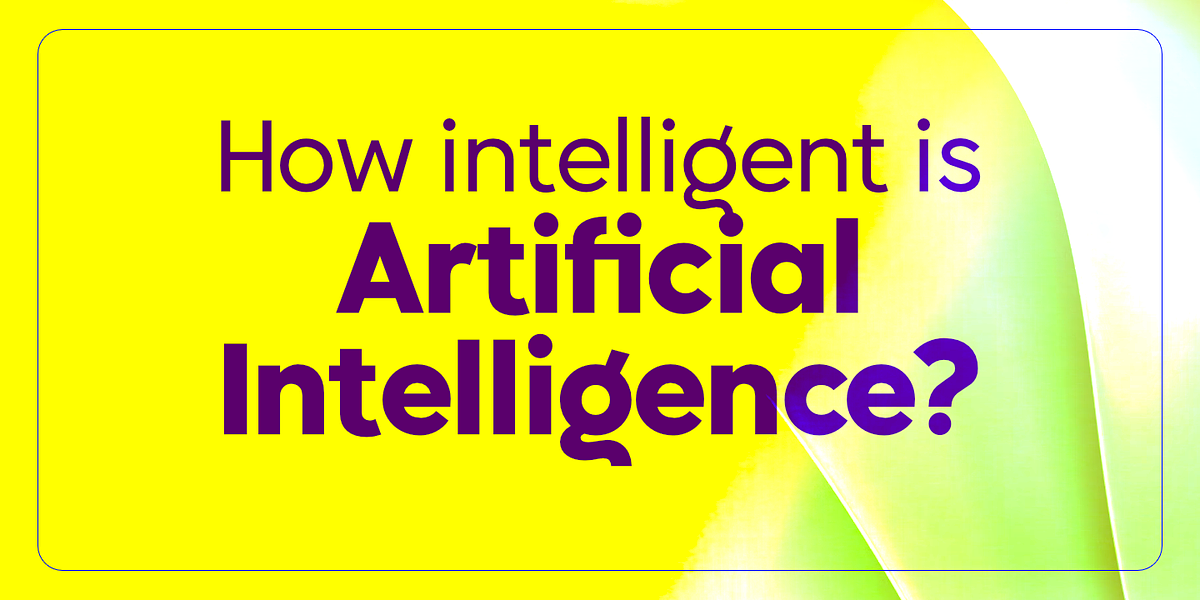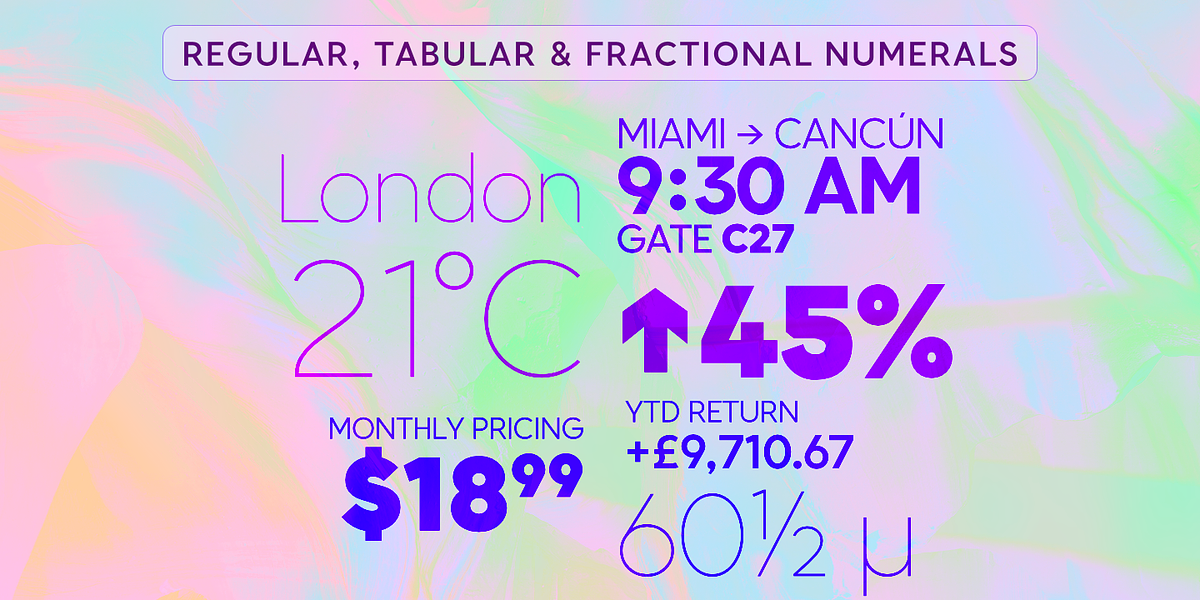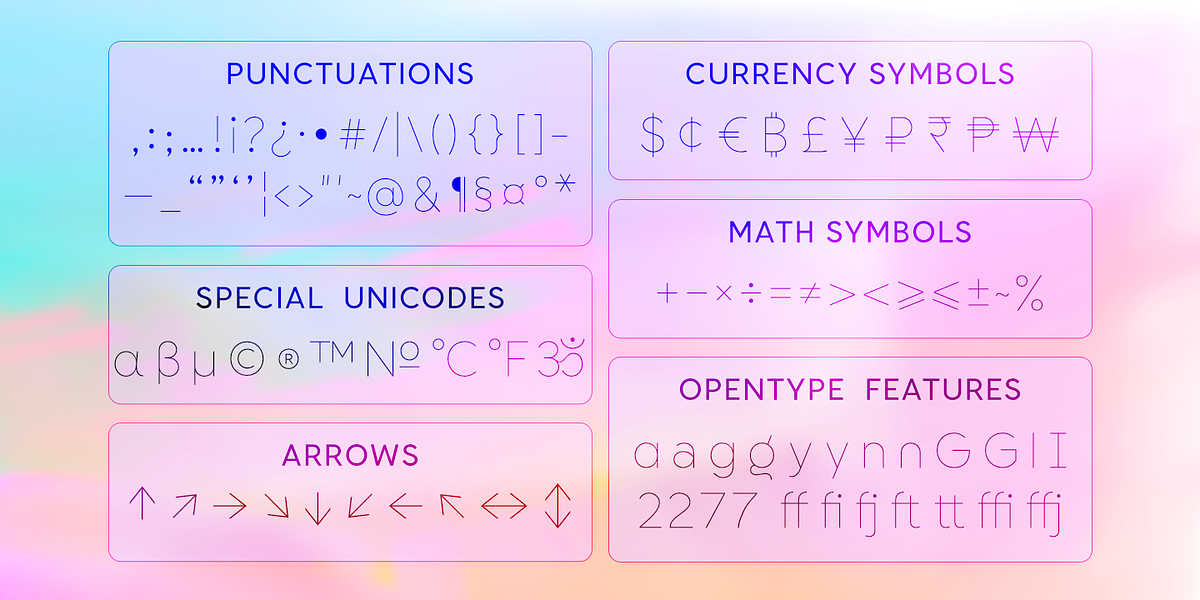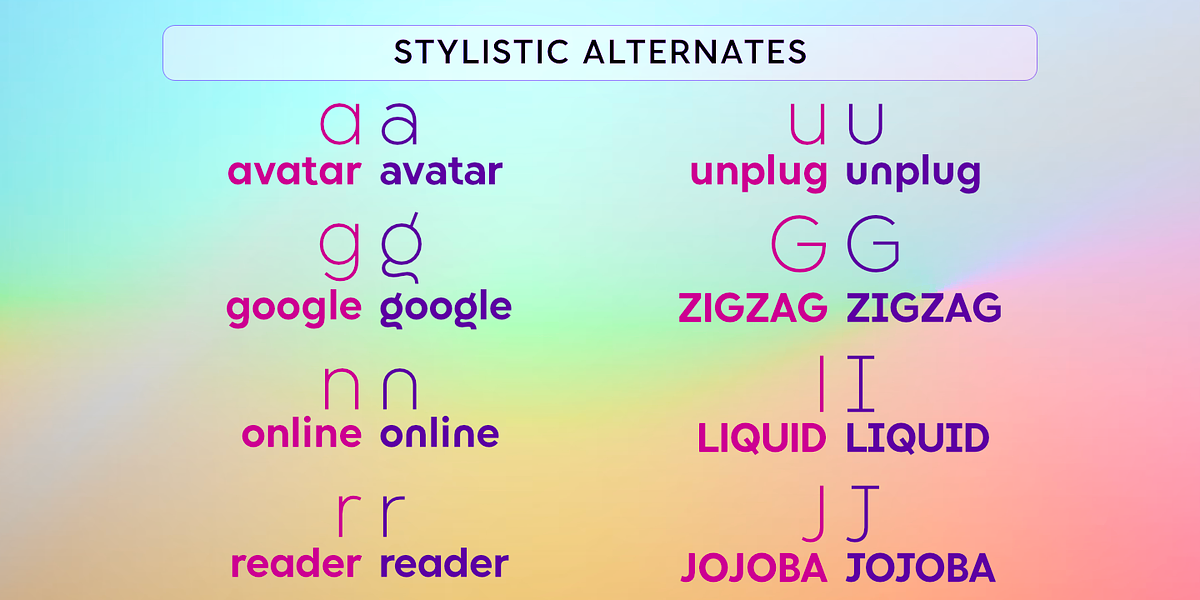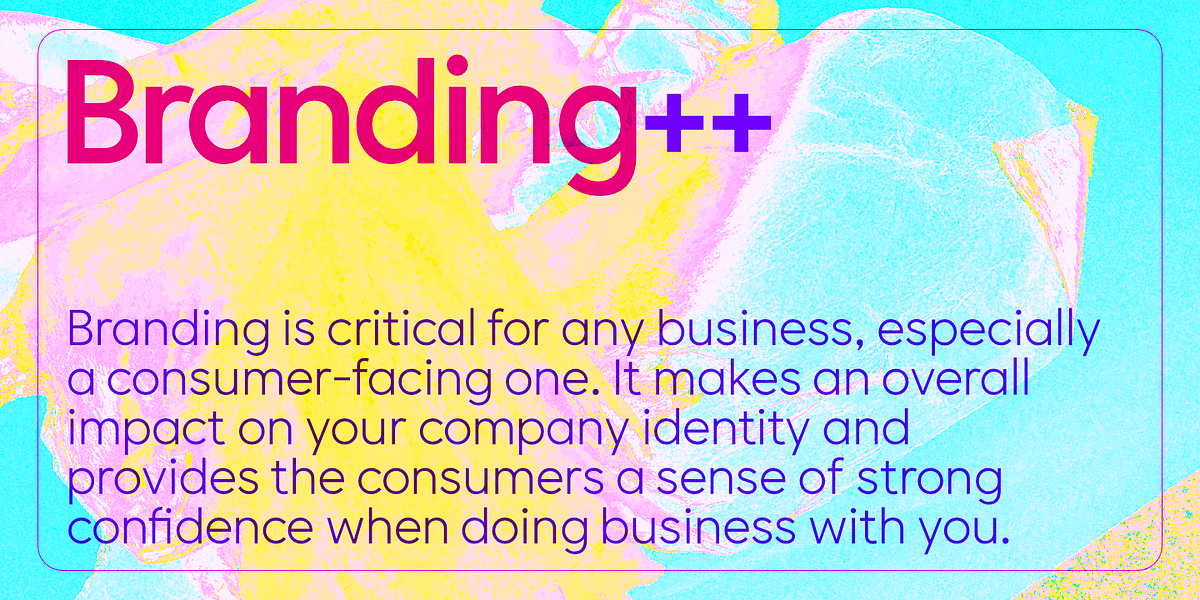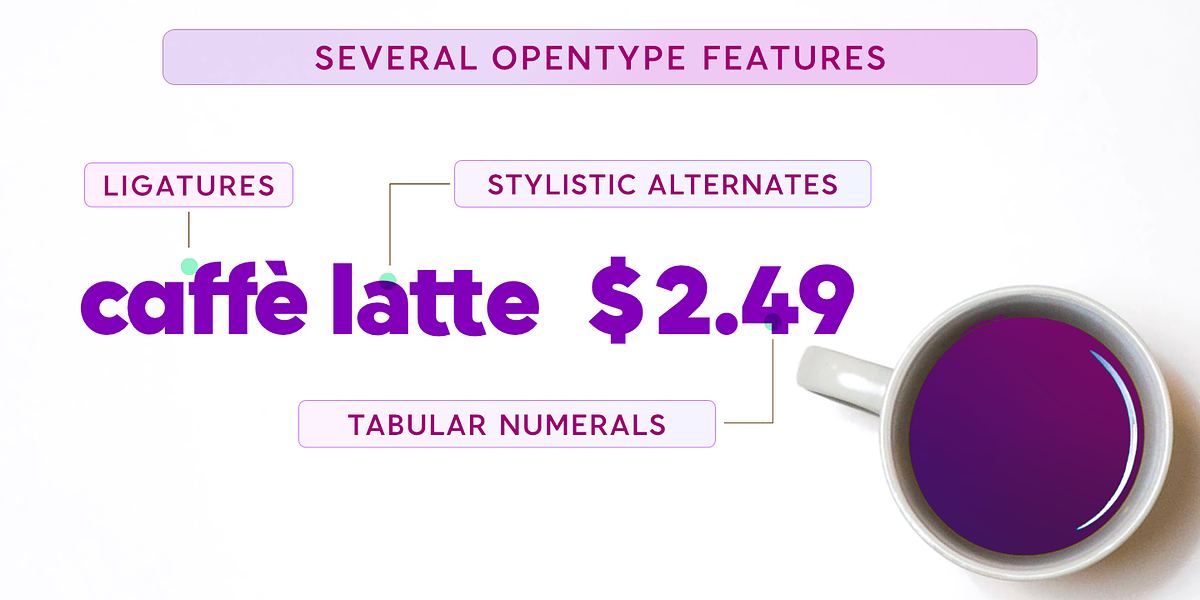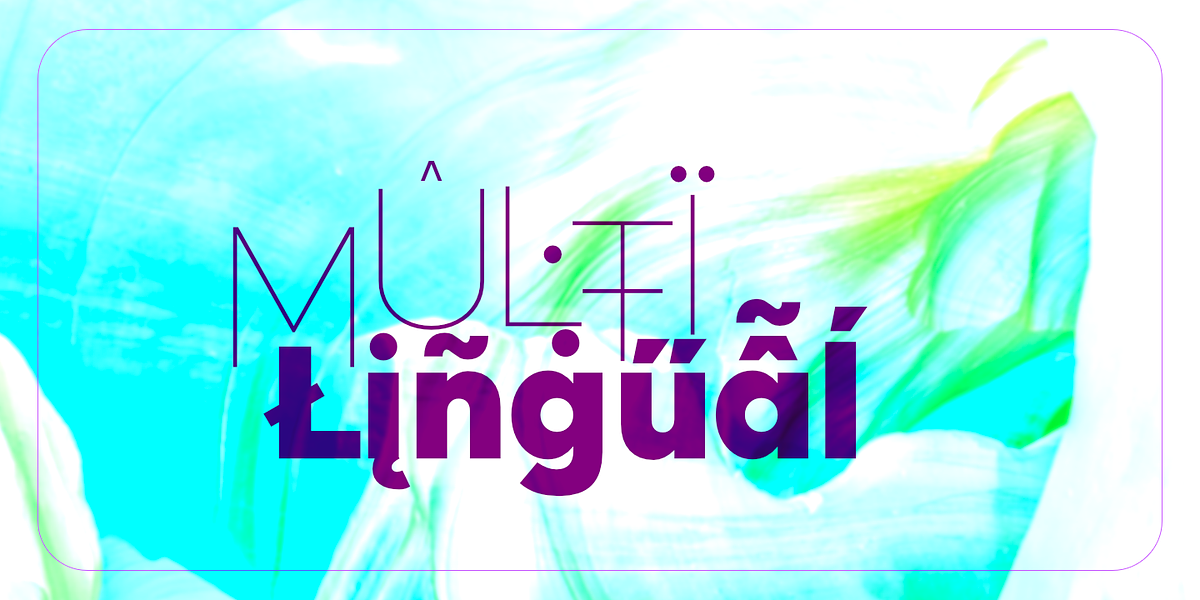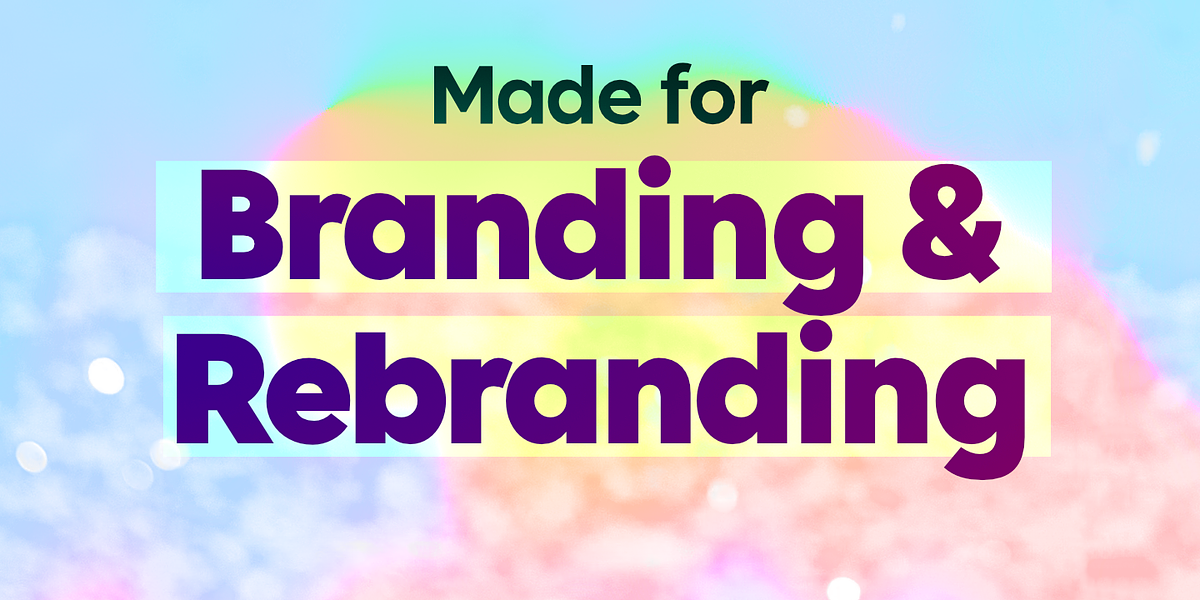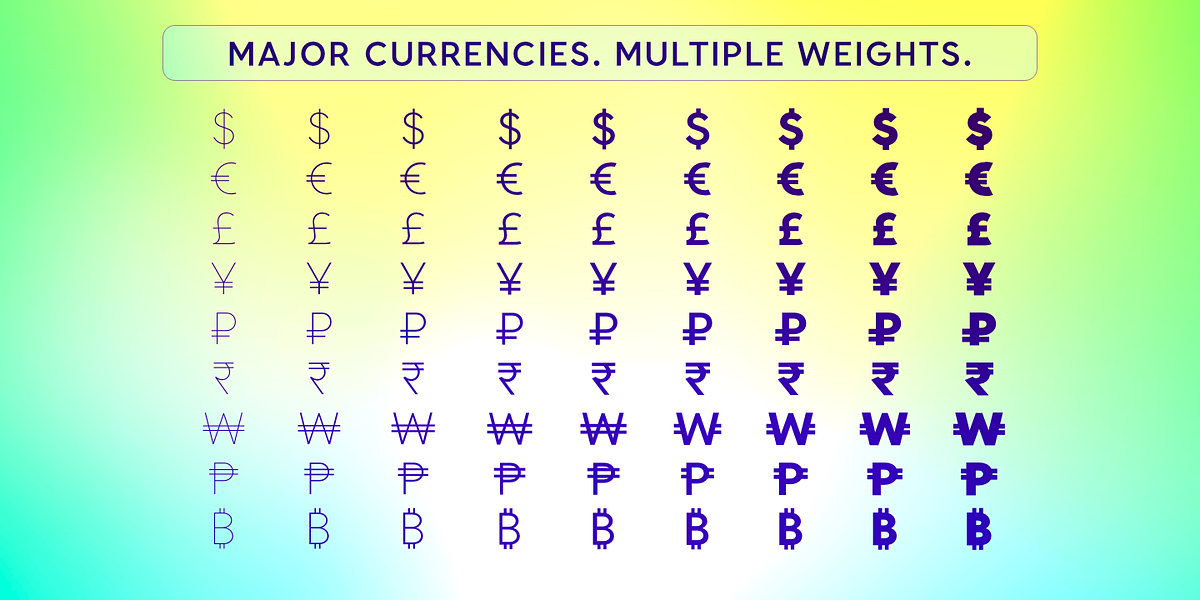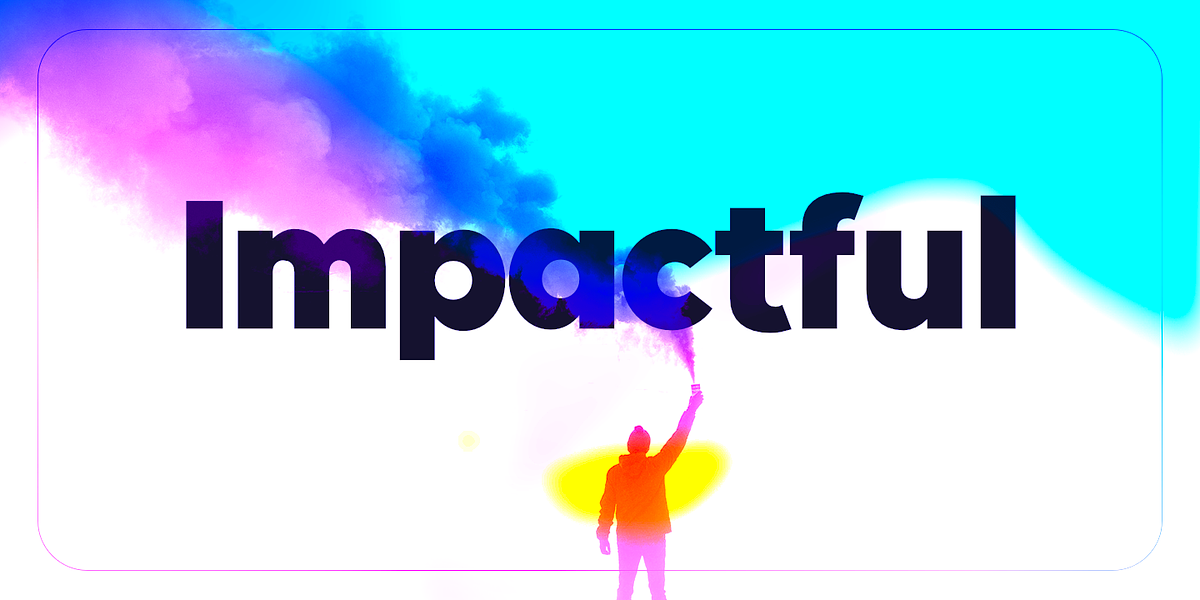
Brahma
Brahma is a modern geometric sans-serif font family designed for display use. It features 9 weights, ranging from Thin (100) to Black (900), and supports over 550 glyphs with extended Latin coverage. The font's clean geometric forms make it ideal for branding, rebranding, titles, logos, and headlines. Brahma also includes OpenType features like ligatures and stylistic alternates, as well as tabular numerals and symbols for 10 major currencies.